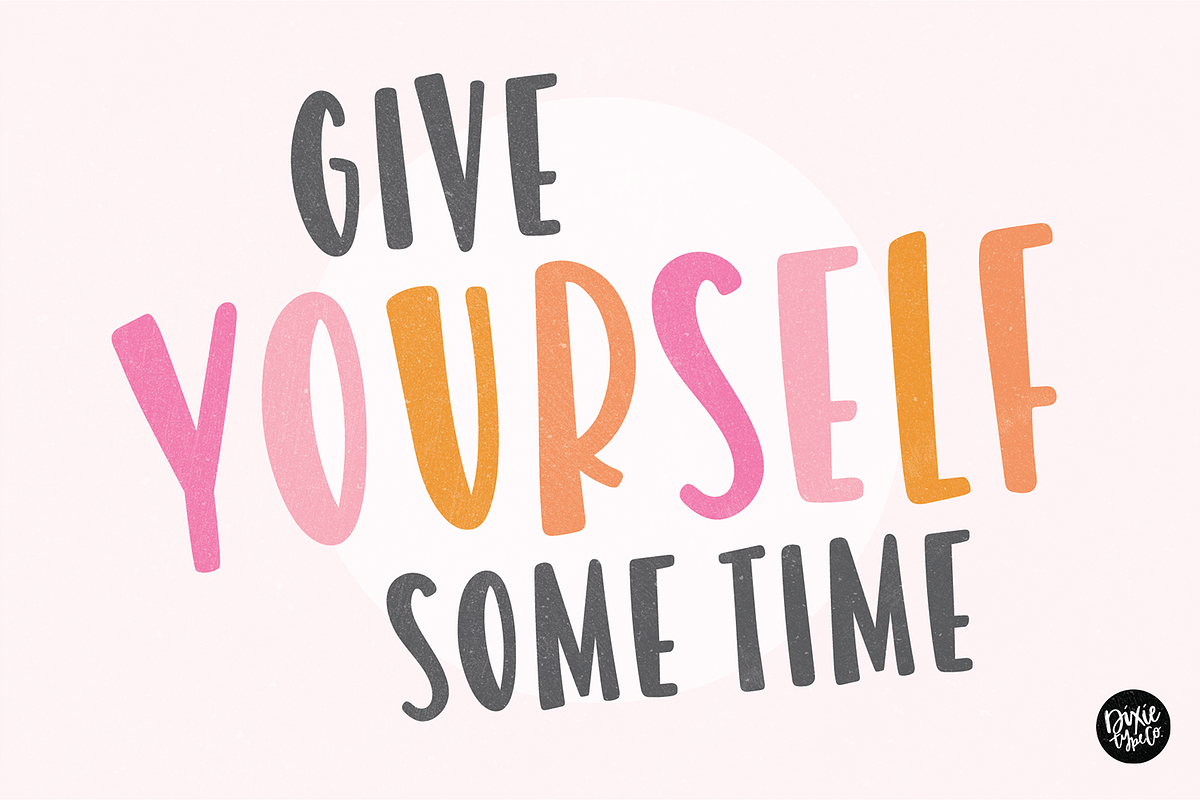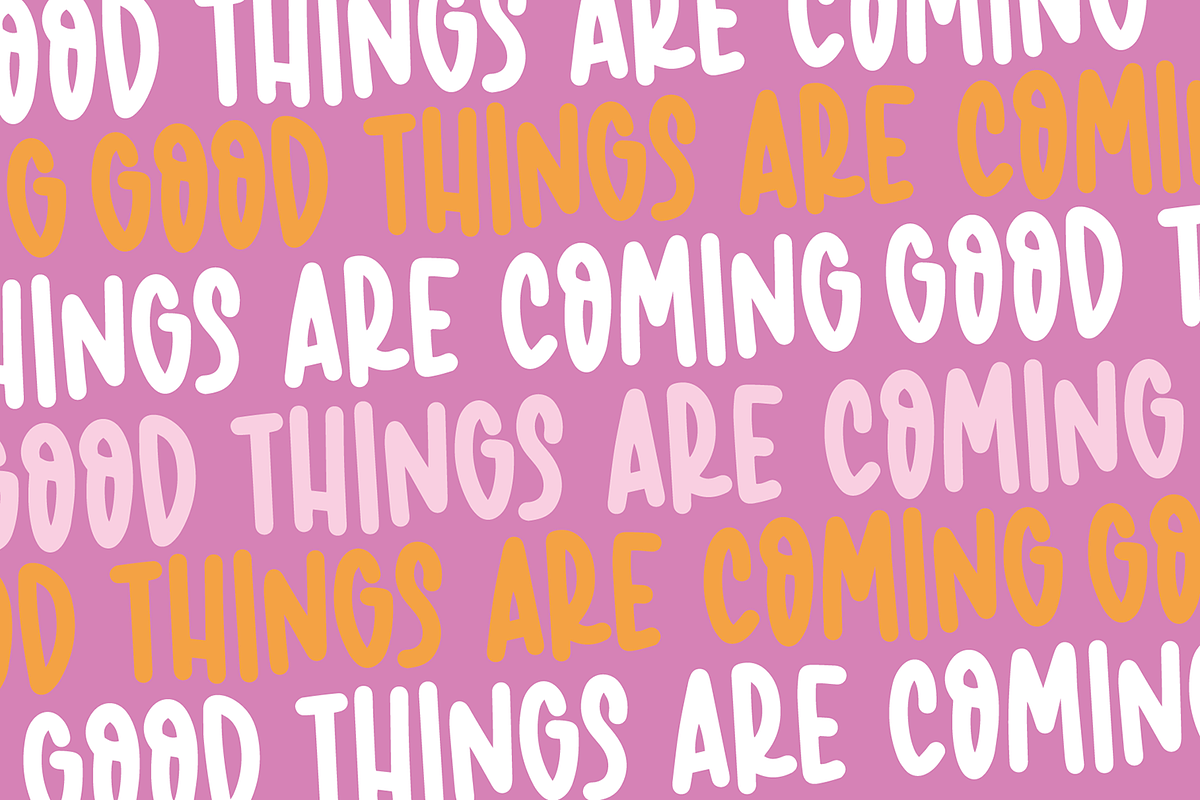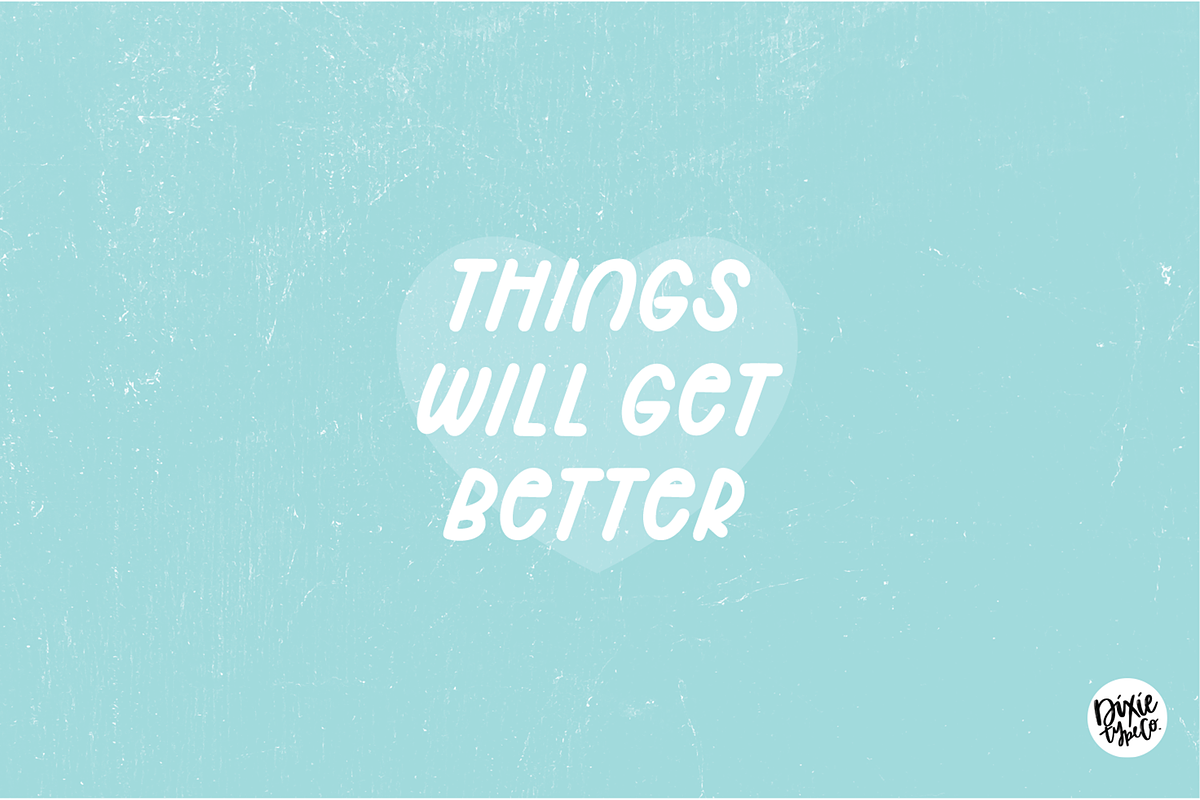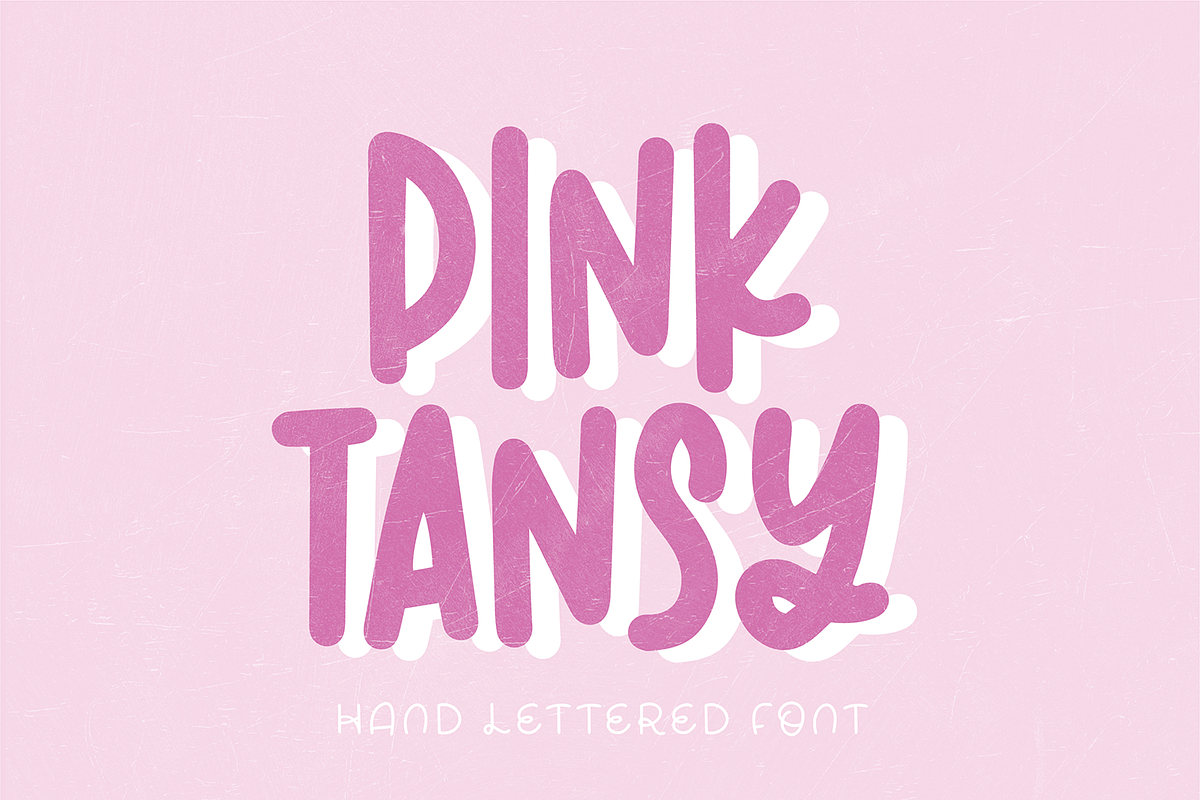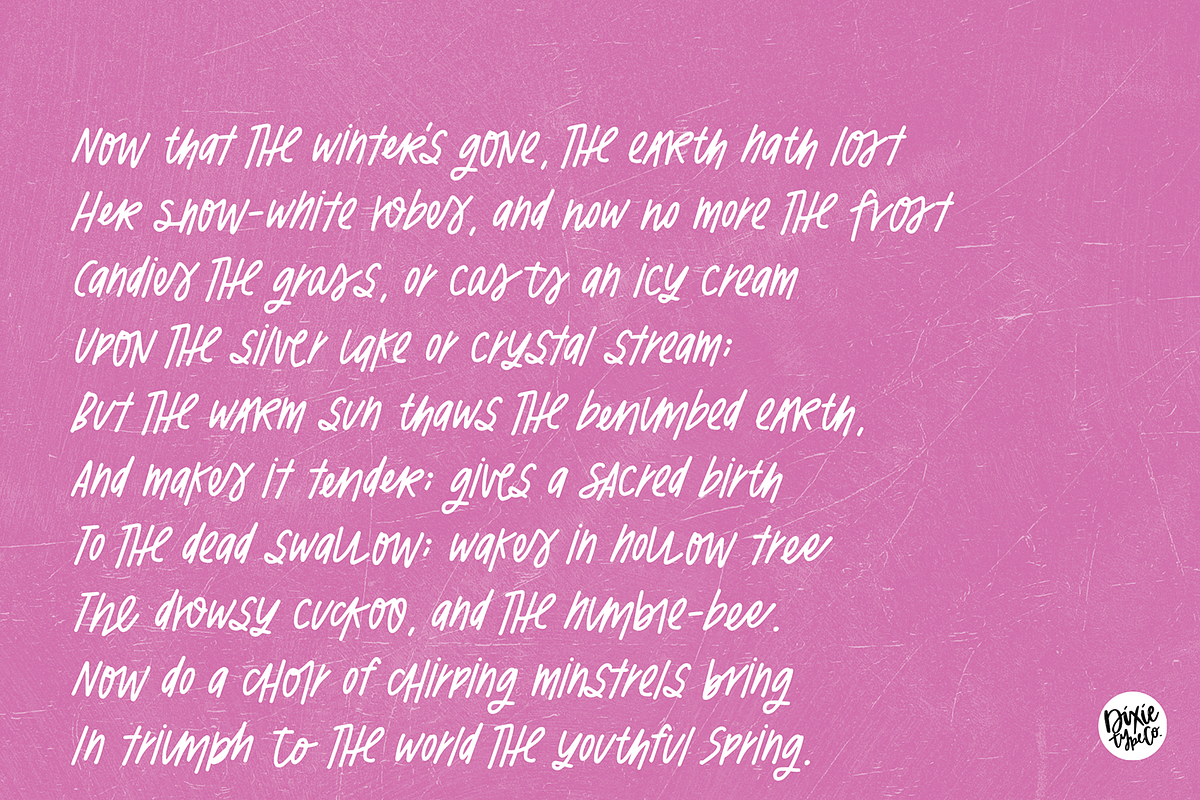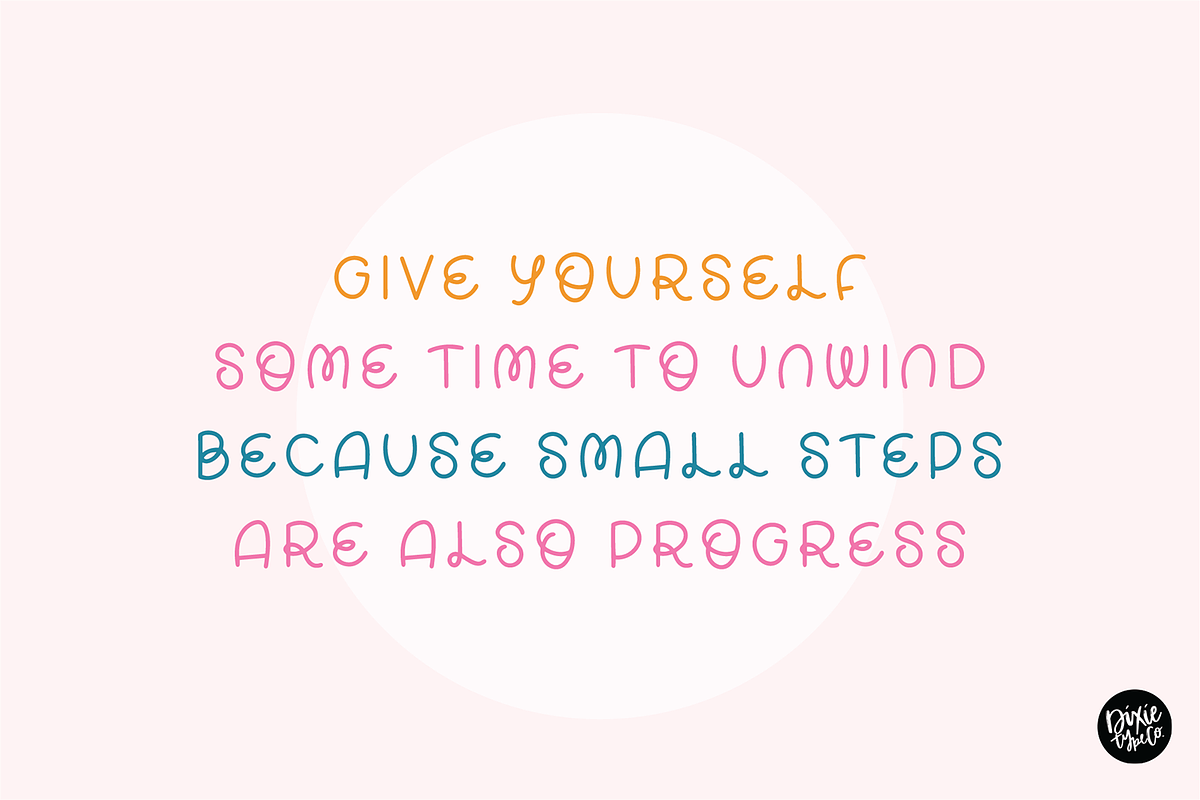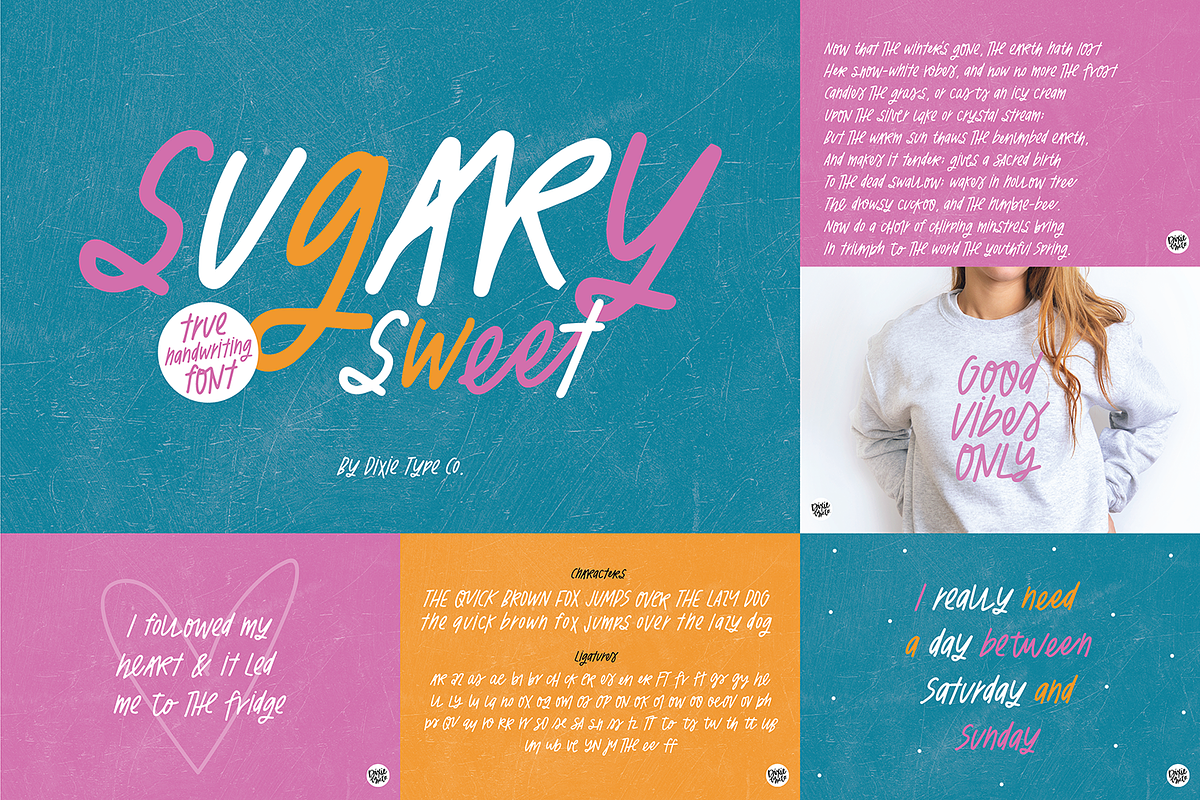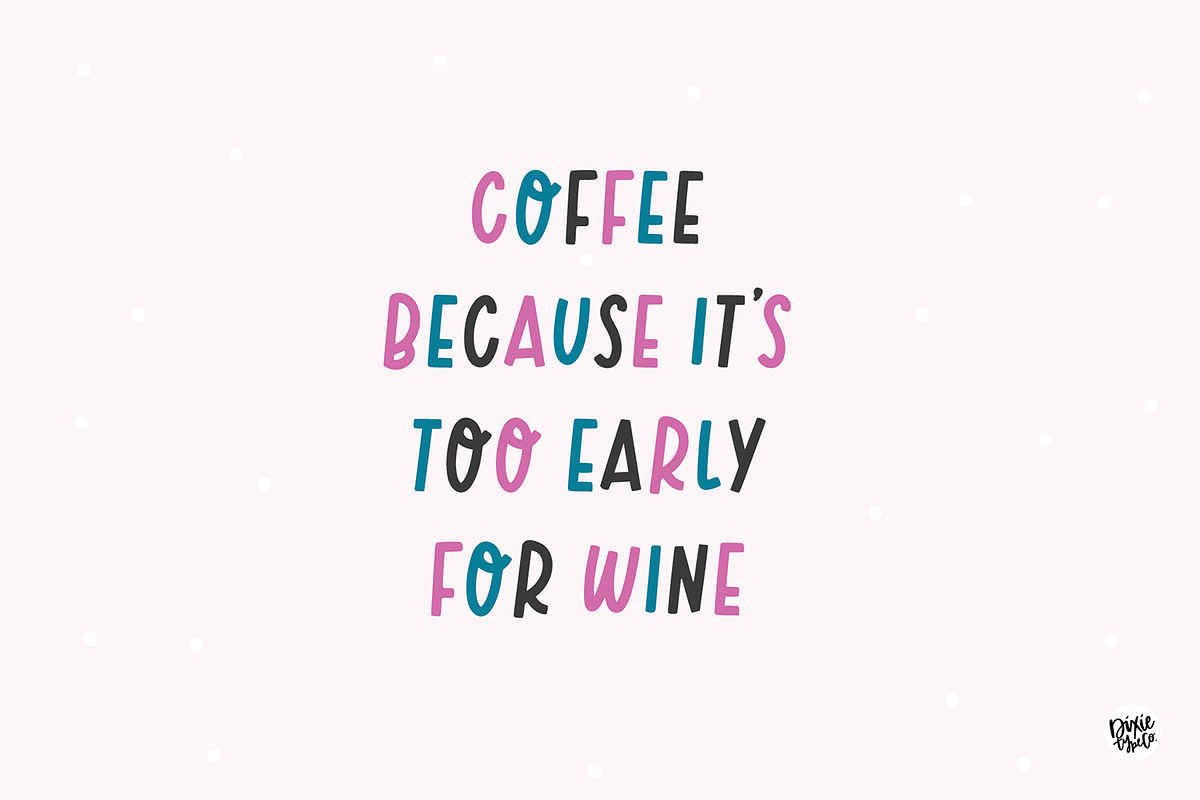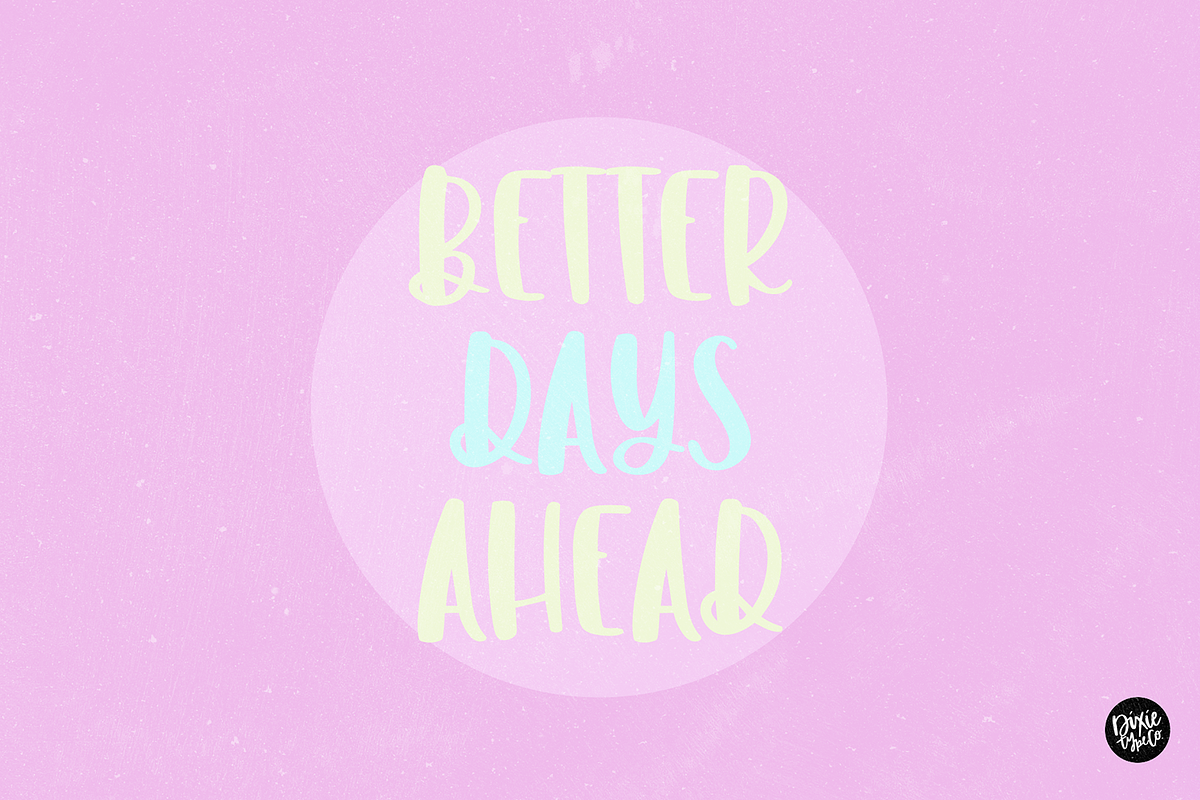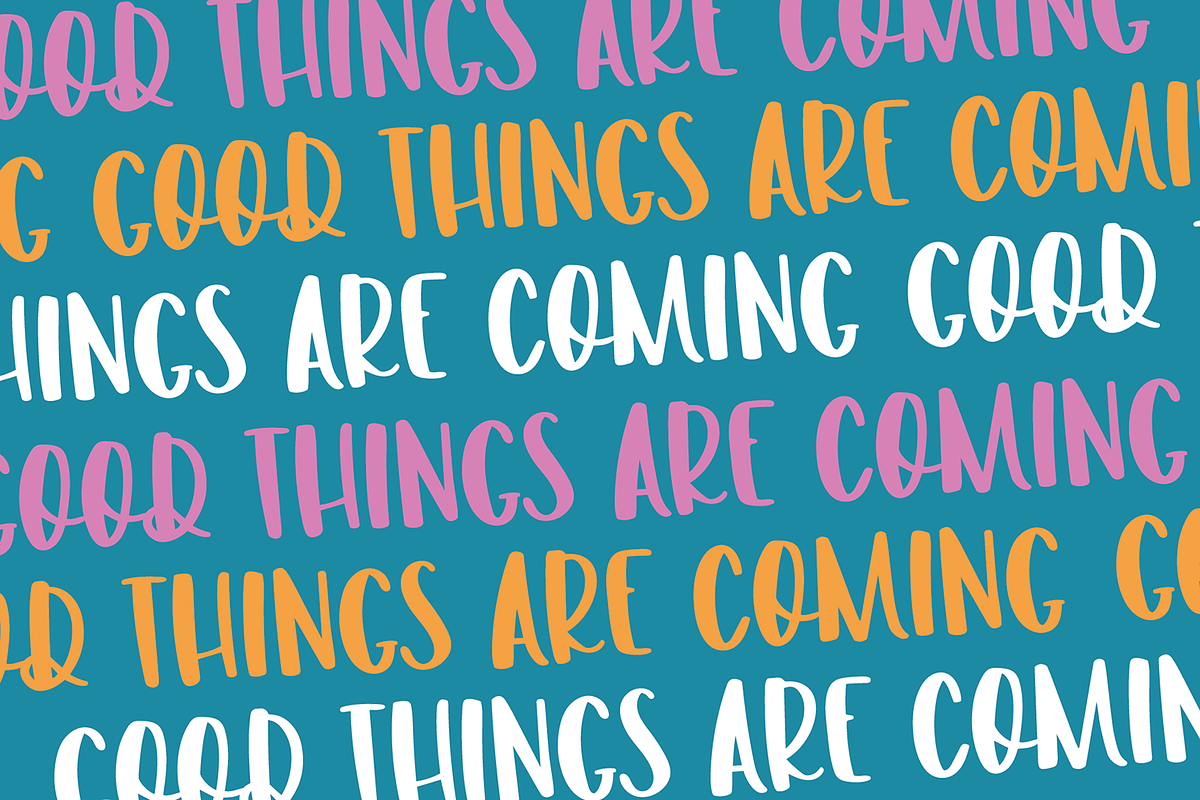
SOCIALLY SAVVY Font Bundle
This font bundle is girly and fun! It is perfect for your social media marketing, svg designs, and craft projects.
The 8 fonts included: -SUGARY SWEET -TRICKERY -BRIGHT DAYS -SARAH SANS -MARKER BRUSH -SOME LOVE -PAPER AIRPLANES -PINK TANSY